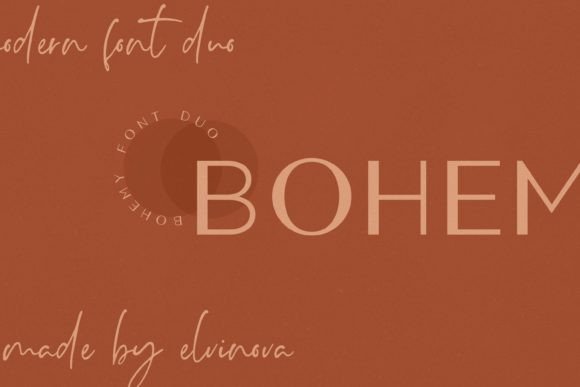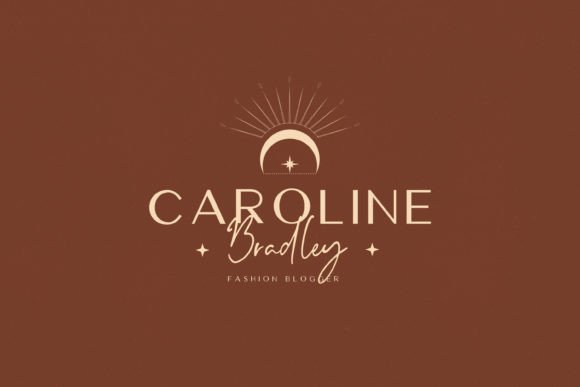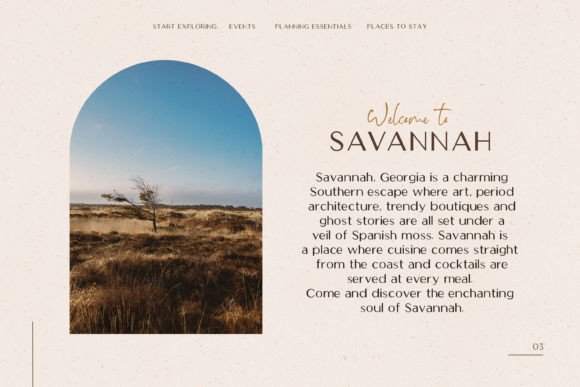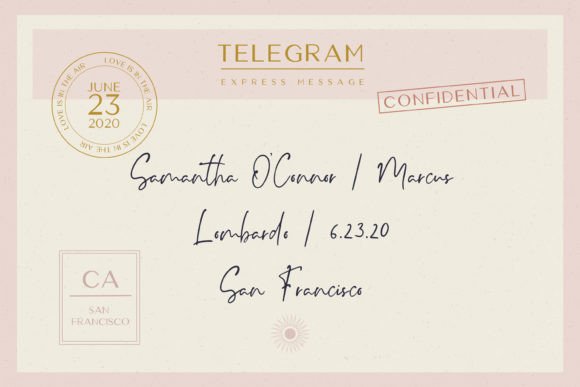
Bohemy Font
About the Bohemy Font
Step up your design game with Bohemy Font, a font that exudes confidence and style. Bohemy is an aesthetic font duo. Perfectly suited to logo, branding, signature, wedding cards, packaging design, stationery, website design and more.
Bohemy’s elegant yet slightly whimsical style makes it ideal for projects requiring a touch of sophistication with a hint of playfulness. It excels in logo design, branding materials, and short-form text like headlines and packaging. Its decorative nature, however, makes it less suitable for body copy or UI elements where readability is paramount.
Consider pairing Bohemy with a clean sans-serif like Montserrat for a balanced contrast, or a classic serif such as Playfair Display for a more traditional feel. For a modern twist, a geometric sans-serif like Futura would create a striking juxtaposition.
Bohemy projects a personality that is both refined and approachable, lending itself well to brands in fashion, beauty, or the arts. Its distinct character ensures memorability without appearing overwhelming.
Bohemy Font Usage Examples
Bohemy Font Example